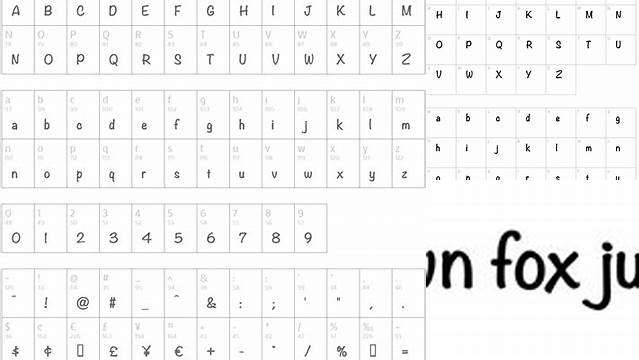
Free Tally Text Bold Font: Download Now!
Hey guys! Are you on the hunt for the perfect bold font to make your text really pop? Look no further! This article is your ultimate guide to finding and downloading tally text bold fonts for free. We'll dive deep into everything you need to know, from the basics of font selection to specific resources where you can grab these beauties without spending a dime. So, let's get started and explore the world of bold fonts together!
1. Understanding the Importance of Bold Fonts
Why is choosing the right tally text bold font so crucial? Well, fonts play a massive role in how your message is perceived. A bold font can instantly grab attention, emphasize key points, and create a strong visual impact. Whether you're designing a website, crafting a presentation, or creating marketing materials, the right bold font can make all the difference. Think of it as the loudspeaker for your words – it amplifies your message and ensures it doesn't go unnoticed. The impact of bold fonts goes beyond mere aesthetics; they influence readability and accessibility. For instance, individuals with visual impairments often benefit from the enhanced clarity that bold fonts provide. In the realm of branding, a strategically chosen bold font can become synonymous with your brand's identity, fostering recognition and recall among your audience. Therefore, the selection of a bold font should be a deliberate process, taking into account not only visual appeal but also the practical considerations of communication and accessibility.
2. What is Tally Text and Why is Bold Important?
So, what exactly is tally text, and why is the bold version so important? Tally text often refers to text used in accounting or financial documents, where clarity and emphasis are key. Imagine reading a spreadsheet filled with numbers – using a bold font for the totals or key figures makes them instantly recognizable. This not only helps in quick comprehension but also reduces the chances of errors. In the context of financial documents, accuracy is paramount, and bold fonts play a vital role in ensuring that critical information stands out. Moreover, the use of bold fonts in tally text can enhance the overall organization and structure of the document, making it easier to navigate and interpret. In essence, bold fonts in tally text serve as visual cues, guiding the reader's eye to the most significant data points and facilitating efficient decision-making. This is why the demand for high-quality, freely available tally text bold fonts is consistently high among professionals in finance, accounting, and related fields.
3. Exploring Different Styles of Bold Fonts
The world of bold fonts is incredibly diverse! There's a tally text bold font out there for every need and aesthetic. You've got your classic, sturdy sans-serif options, perfect for a clean and modern look. Then there are the serif fonts, which bring a touch of tradition and formality. And let's not forget the more playful and creative bold fonts that can add personality to your projects. Understanding the nuances of each style is essential for making the right choice. Sans-serif fonts, such as Arial Bold or Helvetica Bold, are renowned for their legibility and are often favored in digital interfaces and corporate communications. Serif fonts, like Times New Roman Bold or Georgia Bold, exude a sense of authority and are frequently used in print materials, such as books and newspapers. Beyond these, there are numerous display fonts that offer unique and artistic expressions, ideal for branding and advertising purposes. Ultimately, the selection of a bold font style hinges on the intended message and the desired emotional impact on the audience.
4. Identifying Your Needs: When to Use Bold Fonts
Before you dive into downloading, think about when you need a tally text bold font. Are you highlighting headings? Emphasizing crucial data in a report? Or creating eye-catching marketing materials? Knowing your purpose will help you narrow down your choices and select the most effective font. Bold fonts are invaluable for drawing attention to key information, whether it's in a document, a presentation, or a web page. They act as visual signposts, guiding the reader's eye and ensuring that critical points are not overlooked. However, it's also crucial to exercise moderation in the use of bold fonts. Overusing them can diminish their impact and create visual clutter, making the text appear overwhelming rather than emphasizing specific elements. Therefore, strategic implementation is key. Consider using bold fonts for headings, subheadings, call-to-actions, and specific data points that warrant immediate attention. A balanced approach will enhance the overall clarity and effectiveness of your communication.
7. Google Fonts: A Treasure Trove of Bold Options
Google Fonts is a fantastic resource, offering a huge selection of free fonts, including plenty of bold options perfect for tally text. The best part? All fonts on Google Fonts are open-source, meaning you can use them for personal and commercial projects without worry. Google Fonts is renowned for its extensive collection of high-quality, open-source fonts that are readily accessible and free to use. Its user-friendly interface allows you to easily browse, filter, and preview fonts, making the selection process seamless. The platform offers a wide range of bold fonts suitable for tally text, including popular choices like Roboto Bold, Open Sans Bold, and Montserrat Bold. These fonts are not only visually appealing but also optimized for readability, ensuring that your text stands out and is easy to interpret. Furthermore, Google Fonts provides detailed information about each font's licensing, usage guidelines, and language support, empowering users to make informed decisions. The convenience and reliability of Google Fonts make it a go-to resource for designers, developers, and anyone seeking high-quality bold fonts for their projects. Its seamless integration with web development tools and platforms further enhances its appeal, making it a staple in the digital design landscape.
8. Font Squirrel: Bold and Legally Sound
Font Squirrel is another excellent site for free fonts, with a focus on fonts that are licensed for commercial use. This means you can confidently download a tally text bold font and use it in your business projects without having to worry about licensing issues. Font Squirrel distinguishes itself by curating fonts that are explicitly licensed for commercial use, providing users with peace of mind when incorporating them into their projects. The website offers a diverse collection of bold fonts, ranging from classic styles to contemporary designs, ensuring that there's something for every aesthetic and purpose. Font Squirrel's intuitive interface allows for easy browsing and filtering, enabling users to quickly find the perfect bold font for their needs. Each font listing includes comprehensive information about its licensing terms, designer, and usage recommendations, empowering users to make informed decisions. The platform also features a Font Identifier tool, which helps users identify fonts based on images, making it a valuable resource for designers and marketers seeking to match existing fonts or create cohesive visual branding. Font Squirrel's commitment to providing legally sound and high-quality fonts has solidified its reputation as a trusted source for free fonts among professionals and enthusiasts alike.
9. DaFont: A Wide Variety of Free Bold Fonts
DaFont is a popular choice for finding a tally text bold font, offering a vast collection of fonts in various styles. However, be extra careful with licensing here, as fonts are uploaded by individual designers, and their licenses can vary. DaFont is a widely recognized platform for discovering free fonts, boasting an extensive library that caters to diverse design preferences and project requirements. The website's user-friendly interface allows for easy navigation and font discovery, with options to filter fonts by style, category, and popularity. DaFont's collection includes a plethora of bold fonts suitable for tally text, ranging from traditional serif fonts to modern sans-serif fonts and decorative display fonts. However, it's crucial to exercise caution when using fonts from DaFont, as the licensing terms can vary significantly between fonts. Some fonts are free for personal use only, while others may be licensed for commercial projects. It's essential to carefully review the licensing information provided by the font designer before incorporating any font into your work to ensure compliance with copyright regulations. Despite the licensing considerations, DaFont remains a valuable resource for designers and creatives seeking a broad range of free bold fonts for their projects. The platform's active community and frequent updates ensure a constant influx of new and exciting font options.
10. Creative Market: Free Goods Section for Font Deals
Creative Market is a marketplace for design assets, but they also have a fantastic "Free Goods" section where you can often find premium fonts offered for free for a limited time. Keep an eye on this section for potential tally text bold font gems! Creative Market is a prominent online marketplace for design assets, including fonts, graphics, templates, and other creative resources. While primarily a platform for paid resources, Creative Market also features a "Free Goods" section that offers a curated selection of premium design assets for free on a weekly basis. This section presents a valuable opportunity to discover high-quality tally text bold fonts that are typically available for purchase. The free goods offerings change regularly, so it's advisable to check the section frequently to avoid missing out on limited-time font deals. Creative Market's fonts are known for their professional quality and attention to detail, making them a worthwhile addition to any designer's toolkit. However, it's important to note that the free goods are often subject to specific licensing terms, so users should carefully review the licensing information before incorporating them into their projects. Creative Market's "Free Goods" section provides a unique avenue for accessing premium fonts at no cost, enhancing the platform's appeal to both seasoned designers and aspiring creatives.
11. Fontspace: Another Option for Free Bold Fonts
Fontspace is another website with a large library of free fonts. You can search specifically for tally text bold font and browse through their selection. Remember to check the licenses before using any font. Fontspace is a popular online resource for discovering and downloading free fonts, offering an extensive collection that caters to diverse design needs and preferences. The platform features a user-friendly interface that allows for easy browsing and searching, with options to filter fonts by style, category, and licensing. Fontspace's library includes a wide array of bold fonts suitable for tally text, ranging from classic and professional styles to modern and decorative options. However, as with other free font websites, it's crucial to pay close attention to the licensing terms associated with each font. Fontspace hosts fonts uploaded by various designers, and their licensing agreements can vary significantly. Some fonts may be free for personal use only, while others may be licensed for commercial projects. Users should carefully review the licensing information provided by the font designer before using any font in their work to ensure compliance with copyright regulations. Despite the licensing considerations, Fontspace remains a valuable resource for designers and creatives seeking a diverse selection of free bold fonts for their projects. The platform's active community and regular updates contribute to its appeal as a go-to destination for font discovery.
12. Open Font Library: A Collaborative Font Project
The Open Font Library is a collaborative project dedicated to providing free and open-source fonts. You can find some excellent tally text bold font options here, all under open licenses. The Open Font Library (OFL) is a collaborative project and online repository dedicated to promoting and providing free and open-source fonts. It operates under the principles of open collaboration and community contribution, fostering the development and dissemination of high-quality fonts that are freely available for use and modification. The OFL's collection includes a diverse range of font styles, including bold fonts suitable for tally text applications. These fonts are released under open licenses, such as the SIL Open Font License (OFL), which permits the free use, modification, and distribution of the fonts, even for commercial purposes. The Open Font Library serves as a valuable resource for designers, developers, and creatives seeking legally sound and versatile fonts for their projects. The platform's collaborative nature encourages font designers to contribute their work, enriching the font selection and promoting innovation in typography. The Open Font Library's commitment to open-source principles and community engagement has solidified its role as a leading provider of free fonts in the design and development ecosystem.
13. Choosing the Right Bold Font for Your Project
With so many options, how do you choose the right tally text bold font? Consider the overall tone and style of your project. A formal document might require a more traditional bold serif font, while a modern website might benefit from a clean sans-serif option. Choosing the right bold font for your project is a crucial step in ensuring effective communication and visual impact. The selection process involves considering various factors, including the project's purpose, target audience, brand identity, and design aesthetic. A formal document, such as a financial report or legal agreement, may call for a traditional serif font in bold, such as Times New Roman Bold or Garamond Bold, to convey a sense of authority and professionalism. Conversely, a modern website or marketing campaign might benefit from a clean and contemporary sans-serif font in bold, such as Open Sans Bold or Montserrat Bold, to project a sense of innovation and approachability. The size and readability of the font are also important considerations, particularly in tally text applications where clarity is paramount. It's essential to select a bold font that is legible at various sizes and weights, ensuring that the text remains clear and easy to read across different devices and media. Ultimately, the ideal bold font should align with the project's goals and enhance its overall visual appeal and effectiveness.
14. Pairing Bold Fonts with Other Fonts
Using a tally text bold font effectively often involves pairing it with other fonts. A good rule of thumb is to choose a contrasting font for body text – for example, a lighter weight of the same font family or a different but complementary font altogether. Pairing bold fonts with other fonts is a critical aspect of typography that significantly impacts the overall design aesthetic and readability. Effective font pairing involves selecting complementary fonts that harmonize with each other while creating visual interest and hierarchy. When using a tally text bold font, it's crucial to choose a secondary font that balances its strong presence without overpowering it. A common approach is to pair a bold font with a lighter weight of the same font family, creating a cohesive and visually appealing design. For instance, a bold sans-serif font like Roboto Bold can be paired with Roboto Regular for body text, ensuring consistency while maintaining clarity. Alternatively, a different but complementary font can be chosen to create contrast and visual distinction. For example, a bold serif font like Playfair Display Bold can be paired with a sans-serif font like Montserrat for a sophisticated and balanced look. The key is to select fonts that work together harmoniously, enhancing the readability and visual appeal of the project.
15. Best Practices for Using Bold Fonts in Documents
To make the most of your tally text bold font, follow some best practices. Use bold sparingly to highlight key information, avoid using bold for entire paragraphs (it can become tiring to read), and ensure the font size is large enough for comfortable reading. To maximize the effectiveness of a tally text bold font in documents, it's essential to adhere to best practices that promote clarity, readability, and visual hierarchy. Bold fonts should be used sparingly to highlight key information, such as headings, subheadings, totals, and critical data points. Overusing bold can diminish its impact and create visual clutter, making the text appear overwhelming. It's advisable to avoid using bold for entire paragraphs or lengthy sections of text, as this can strain the reader's eyes and reduce comprehension. Instead, focus on strategically using bold to draw attention to specific words or phrases that warrant emphasis. Ensuring the font size is sufficiently large is also crucial for readability, particularly in tally text applications where accuracy is paramount. The font size should be large enough for comfortable reading across different devices and media, minimizing the risk of misinterpretation. By following these best practices, you can effectively leverage bold fonts to enhance the clarity and impact of your documents.
16. How Bold Fonts Impact Readability
Bold fonts can significantly impact readability, but it's a double-edged sword. While they can make text stand out, too much bold can actually make text harder to read. Use them judiciously to highlight important information without overwhelming the reader. Bold fonts have a profound impact on readability, influencing how easily and effectively text is processed by the reader. While bold fonts are invaluable for highlighting key information and creating visual hierarchy, their overuse can have a detrimental effect on readability. Bold fonts draw the reader's attention, making them ideal for emphasizing headings, subheadings, and critical data points. However, when entire paragraphs or long stretches of text are rendered in bold, the visual impact diminishes, and the text can become tiring and difficult to read. The contrast created by bold fonts against regular text helps to guide the reader's eye and improve comprehension, but excessive use can disrupt the flow and make the text appear cluttered. It's crucial to strike a balance, using bold fonts judiciously to draw attention to important elements without overwhelming the reader. Strategic use of bold fonts, coupled with appropriate font sizes and spacing, can significantly enhance readability and improve the overall user experience.
17. Bold Fonts for Financial Documents
In financial documents, a clear and readable tally text bold font is essential. These fonts help highlight key figures, totals, and other important data, making it easier to understand and analyze financial information. In financial documents, the choice of a tally text bold font is paramount, as it directly impacts the clarity, accuracy, and readability of the information presented. Bold fonts play a crucial role in highlighting key figures, totals, and other critical data points, enabling users to quickly identify and interpret financial information. The use of bold fonts in financial documents helps to create visual hierarchy, guiding the reader's eye to the most important elements and reducing the risk of misinterpretation. Sans-serif fonts like Arial Bold or Calibri Bold are often favored in financial documents due to their clean and legible appearance, ensuring that numbers and text are easily distinguishable. However, serif fonts like Times New Roman Bold can also be effective in conveying a sense of formality and authority. The selection of a bold font for financial documents should take into account the document's purpose, target audience, and overall design aesthetic, with a primary focus on enhancing clarity and accuracy. Strategic use of bold fonts, coupled with appropriate formatting and layout, can significantly improve the effectiveness of financial communication.
18. Using Bold Fonts in Spreadsheets
When working with spreadsheets, a tally text bold font can be a lifesaver. It makes it easy to spot totals, subtotals, and other important calculations, helping you avoid errors and make informed decisions. In spreadsheets, a tally text bold font is an indispensable tool for enhancing data clarity, organization, and accuracy. Bold fonts play a crucial role in visually distinguishing key elements within a spreadsheet, such as totals, subtotals, column headers, and critical data entries. The use of bold fonts in spreadsheets enables users to quickly identify and interpret important information, facilitating efficient analysis and decision-making. By highlighting key calculations and figures, bold fonts help to prevent errors and ensure that critical data is not overlooked. Sans-serif fonts like Arial Bold or Calibri Bold are commonly used in spreadsheets due to their clean and legible appearance, making it easy to read and interpret numerical data. The strategic application of bold fonts in spreadsheets can significantly improve data comprehension and usability, transforming complex datasets into easily digestible information. Whether it's for financial analysis, data tracking, or project management, the effective use of a tally text bold font is essential for spreadsheet users.
19. Bold Fonts for Presentations: Making Key Points Stand Out
In presentations, bold fonts are your best friend for making key points stand out. Use them to highlight headings, bullet points, and crucial information that you want your audience to remember. Bold fonts are a powerful asset in presentations, serving as visual cues to highlight key points and engage the audience. Strategic use of bold fonts can significantly enhance the clarity and impact of presentation slides, ensuring that critical information stands out and is easily remembered. Bold fonts are ideal for emphasizing headings, subheadings, bullet points, and other important elements that warrant immediate attention. By drawing the audience's eye to these key points, bold fonts help to guide their understanding and retention of the material presented. When used judiciously, bold fonts can create a visual hierarchy that makes the presentation more organized and visually appealing. Sans-serif fonts like Arial Bold or Helvetica Bold are often favored in presentations due to their clean and modern appearance, ensuring legibility even from a distance. The thoughtful incorporation of bold fonts into presentation design can transform a simple slideshow into a compelling and memorable visual experience.
20. Free Bold Font Alternatives to Popular Paid Fonts
If you're looking for a free tally text bold font that's similar to a popular paid option, you're in luck! There are many excellent free alternatives available. We'll explore some of the best ones. The quest for high-quality fonts often leads to expensive paid options, but fortunately, there's a wealth of free alternatives that offer similar aesthetics and functionality. For those seeking a free tally text bold font that rivals popular paid options, numerous excellent alternatives are available. One common scenario is finding a free alternative to Helvetica Bold, a widely used sans-serif font known for its clean and versatile appearance. Open Sans Bold, available on Google Fonts, is a popular choice that closely resembles Helvetica Bold and is free for both personal and commercial use. Similarly, Montserrat Bold is a free alternative that offers a modern and geometric aesthetic similar to Futura Bold, another widely used paid font. Other notable free bold font alternatives include Roboto Bold, which is comparable to Arial Bold, and Lato Bold, which offers a similar feel to Proxima Nova Bold. By exploring these free alternatives, designers and creatives can access high-quality tally text bold fonts without incurring the cost of paid licenses, making font selection more accessible and budget-friendly.
21. Installing Your Downloaded Bold Font
Once you've downloaded your perfect tally text bold font, you'll need to install it on your computer. The process is usually straightforward, but we'll walk you through the steps for both Windows and Mac. Installing a downloaded bold font is a straightforward process that allows you to use the font in various applications on your computer. The installation process differs slightly between Windows and Mac operating systems, but the fundamental steps remain the same. On Windows, you can install a font by right-clicking the font file (typically a .ttf or .otf file) and selecting "Install" from the context menu. Alternatively, you can copy the font file to the Fonts folder, which is located in the Windows directory. On a Mac, you can install a font by double-clicking the font file and clicking the "Install Font" button in the Font Book application. The Font Book application, which is pre-installed on macOS, provides a centralized location for managing fonts on your system. Once the font is installed, it will be available for use in various applications, such as word processors, design software, and spreadsheet programs. Proper installation ensures that your downloaded tally text bold font is readily accessible and can be used to enhance your projects.
22. Testing Your New Bold Font: Ensuring Readability
After installing your new tally text bold font, it's a good idea to test it out. Write some sample text in different sizes and contexts to make sure it's readable and looks the way you expect. Testing your newly installed bold font is a crucial step to ensure its readability, suitability, and overall effectiveness in your projects. After downloading and installing a tally text bold font, it's essential to test it in various contexts to assess its performance. This involves writing sample text in different sizes, weights, and styles to evaluate how the font renders across various applications and devices. Testing the font in different sizes helps to determine its legibility at smaller sizes, ensuring that it remains readable even in dense text blocks. Evaluating the font in different weights and styles, such as regular, italic, and bold, helps to assess its versatility and visual impact. Additionally, testing the font in different contexts, such as headings, body text, and captions, helps to determine its suitability for various design elements. By thoroughly testing your new bold font, you can ensure that it meets your specific requirements and enhances the overall design of your projects.
23. Common Issues with Using Bold Fonts and How to Fix Them
Sometimes, using bold fonts can lead to issues like text looking too heavy or clashing with other design elements. We'll cover some common problems and how to fix them to ensure your tally text bold font looks its best. While bold fonts are powerful tools for emphasizing text, they can also present challenges if not used judiciously. Common issues associated with the use of bold fonts include text appearing too heavy, clashing with other design elements, and reducing overall readability. One common problem is the overuse of bold fonts, which can result in a cluttered and overwhelming visual appearance. To address this issue, it's essential to use bold fonts sparingly and strategically, reserving them for highlighting key information rather than entire blocks of text. Another common issue is the selection of a bold font that clashes with other design elements, such as the body text font or the overall color scheme. To resolve this, it's crucial to choose a bold font that complements the existing design elements and creates a harmonious visual balance. Additionally, a bold font may reduce readability if it is too heavy or if the font size is too small. To mitigate this, it's important to select a bold font with appropriate weight and ensure that the font size is large enough for comfortable reading. By addressing these common issues, you can effectively leverage bold fonts to enhance your designs without compromising readability or visual appeal.
24. Creating Your Own Bold Font (If You're Feeling Ambitious!)
Feeling adventurous? If you're a design whiz, you could even try creating your own tally text bold font! We'll touch on the basics of font design and the tools you might need. For those with a passion for typography and a desire for unique design, creating your own bold font can be a rewarding and creative endeavor. While font design can be a complex and technical process, it offers the opportunity to craft a tally text bold font that perfectly aligns with your specific needs and aesthetic preferences. The basic steps involved in creating a bold font include sketching the letterforms, digitizing the designs using font design software, and adjusting the spacing and kerning to ensure readability and visual harmony. Several font design software programs are available, ranging from free open-source options to professional-grade tools, each offering a range of features and capabilities. Popular font design software includes FontForge, a free and open-source option, and Glyphs, a professional-grade tool widely used in the industry. Creating a bold font requires patience, attention to detail, and a solid understanding of typographic principles, but the result can be a distinctive and personalized typeface that sets your designs apart. Whether it's a subtle variation of an existing font or a completely original creation, designing your own bold font allows you to express your creativity and contribute to the world of typography.
25. The Future of Bold Fonts: Trends and Innovations
The world of typography is constantly evolving, and bold fonts are no exception. We'll take a peek at some emerging trends and innovations in bold font design and how they might impact your projects. The realm of typography is dynamic, with trends and innovations continuously shaping the landscape of bold font design. As technology advances and design aesthetics evolve, bold fonts are adapting to meet new challenges and opportunities. One notable trend is the increasing emphasis on variable fonts, which offer a flexible and efficient way to deliver multiple font weights, styles, and widths within a single font file. Variable fonts allow for finer control over typography and can significantly improve website performance by reducing file sizes. Another trend is the resurgence of vintage and retro-inspired bold fonts, which evoke a sense of nostalgia and character. These fonts often feature unique letterforms and stylistic details that add personality to designs. Additionally, there's a growing demand for bold fonts that are optimized for digital screens, ensuring legibility and clarity across various devices and resolutions. Innovations in bold font design also include the integration of advanced typographic features, such as ligatures, alternates, and stylistic sets, which enhance the aesthetic appeal and versatility of the fonts. As bold fonts continue to evolve, staying abreast of these trends and innovations can help designers and creatives leverage them effectively in their projects.
26. Bold Font Generators: A Quick and Easy Option?
Need a tally text bold font in a hurry? Bold font generators can seem like a quick fix, but they often have limitations. We'll discuss their pros and cons and whether they're the right choice for your needs. Bold font generators offer a seemingly quick and easy solution for creating bold text effects, but their capabilities and limitations should be carefully considered. These generators typically transform existing text into a bold style by adding a visual emphasis, but they don't actually create a new font file. Instead, they generate an image or a text representation with the bold effect applied. While bold font generators can be useful for quickly creating headings or titles for social media posts or simple designs, they often lack the precision and flexibility of traditional font design methods. The generated bold text may not be scalable or editable in the same way as a true font, and the quality may vary depending on the generator used. Additionally, some bold font generators may have licensing restrictions or watermarks, limiting their suitability for commercial projects. For professional design work and applications requiring high-quality typography, it's generally recommended to use proper bold fonts from reputable sources rather than relying on font generators. However, for quick and informal needs, bold font generators can provide a convenient option for adding visual emphasis to text.
27. Using Bold Fonts in Web Design
In web design, bold fonts are crucial for creating a visual hierarchy and guiding users through your content. A well-chosen tally text bold font can improve readability and make your website more engaging. In web design, bold fonts are indispensable tools for creating a clear visual hierarchy and enhancing user engagement. The strategic use of bold fonts helps to guide users through the content, highlighting key information and improving overall readability. Bold fonts are particularly effective for emphasizing headings, subheadings, and call-to-action buttons, drawing the user's attention to important elements and encouraging interaction. When selecting a tally text bold font for web design, it's crucial to consider factors such as legibility, scalability, and compatibility across different browsers and devices. Sans-serif fonts like Roboto Bold, Open Sans Bold, and Montserrat Bold are commonly used in web design due to their clean and modern appearance, ensuring that text remains readable even at smaller sizes. Additionally, it's essential to optimize the font for web performance, using techniques such as font subsetting and compression to minimize file sizes and loading times. A well-chosen bold font can significantly enhance the visual appeal and usability of a website, contributing to a positive user experience and effective communication.
28. Accessibility Considerations for Bold Fonts
When using a tally text bold font, it's important to consider accessibility. Ensure your font choices are readable for people with visual impairments and that you're not relying solely on bold text to convey information. Accessibility is a paramount consideration when using bold fonts, ensuring that content is readable and usable for people with visual impairments and other disabilities. While bold fonts can enhance visual emphasis and readability for many users, it's crucial to consider their impact on accessibility. One important aspect is ensuring sufficient contrast between the bold text and the background color. Low contrast can make it difficult for individuals with low vision or color blindness to distinguish the text, so it's essential to adhere to accessibility guidelines for color contrast ratios. Additionally, it's important not to rely solely on bold text to convey information, as some users may not be able to perceive the difference between bold and regular text. Instead, use a combination of formatting techniques, such as headings, lists, and visual cues, to structure content and highlight key points. When selecting a tally text bold font, choose one that is legible and well-designed, avoiding overly decorative or stylized fonts that may be difficult to read. By considering accessibility factors and following best practices, you can ensure that your use of bold fonts enhances communication and inclusivity.
29. Bold Fonts for Branding: Creating a Strong Visual Identity
A tally text bold font can be a powerful tool for branding. Choosing a bold font that reflects your brand's personality can help create a strong and memorable visual identity. Bold fonts play a pivotal role in branding, serving as a powerful tool for creating a strong and memorable visual identity. The choice of a tally text bold font can significantly impact how a brand is perceived, conveying its personality, values, and overall aesthetic. A well-chosen bold font can become synonymous with a brand, fostering recognition and recall among its target audience. When selecting a bold font for branding, it's crucial to consider the brand's identity and target market. A bold, modern sans-serif font may be suitable for a tech startup, while a bold, classic serif font may be more appropriate for a luxury brand. The bold font should align with the brand's overall messaging and visual elements, creating a cohesive and consistent brand experience. In addition to the primary brand font, a secondary bold font can be used for headings, subheadings, and other design elements, providing visual hierarchy and reinforcing the brand's identity. By carefully selecting and implementing a bold font in branding efforts, businesses can create a lasting impression and differentiate themselves in the marketplace.
30. Conclusion: Mastering the Art of Bold Fonts
So there you have it – a comprehensive guide to tally text bold fonts! From understanding their importance to finding free options and using them effectively, you're now equipped to master the art of bold fonts. Go forth and make your text shine! In conclusion, mastering the art of bold fonts is an essential skill for anyone involved in design, communication, or content creation. From understanding their importance to finding free options and using them effectively, this comprehensive guide has equipped you with the knowledge and tools to make informed decisions about tally text bold fonts. Bold fonts are powerful tools for enhancing visual emphasis, readability, and brand identity, but their effective use requires careful consideration and strategic implementation. By understanding the nuances of different bold font styles, licensing considerations, and best practices, you can leverage them to create compelling and impactful designs. Whether it's for financial documents, presentations, web design, or branding efforts, the thoughtful application of bold fonts can significantly enhance the overall effectiveness of your communication. As you continue to explore the world of typography, embrace the art of bold fonts and let your text shine.